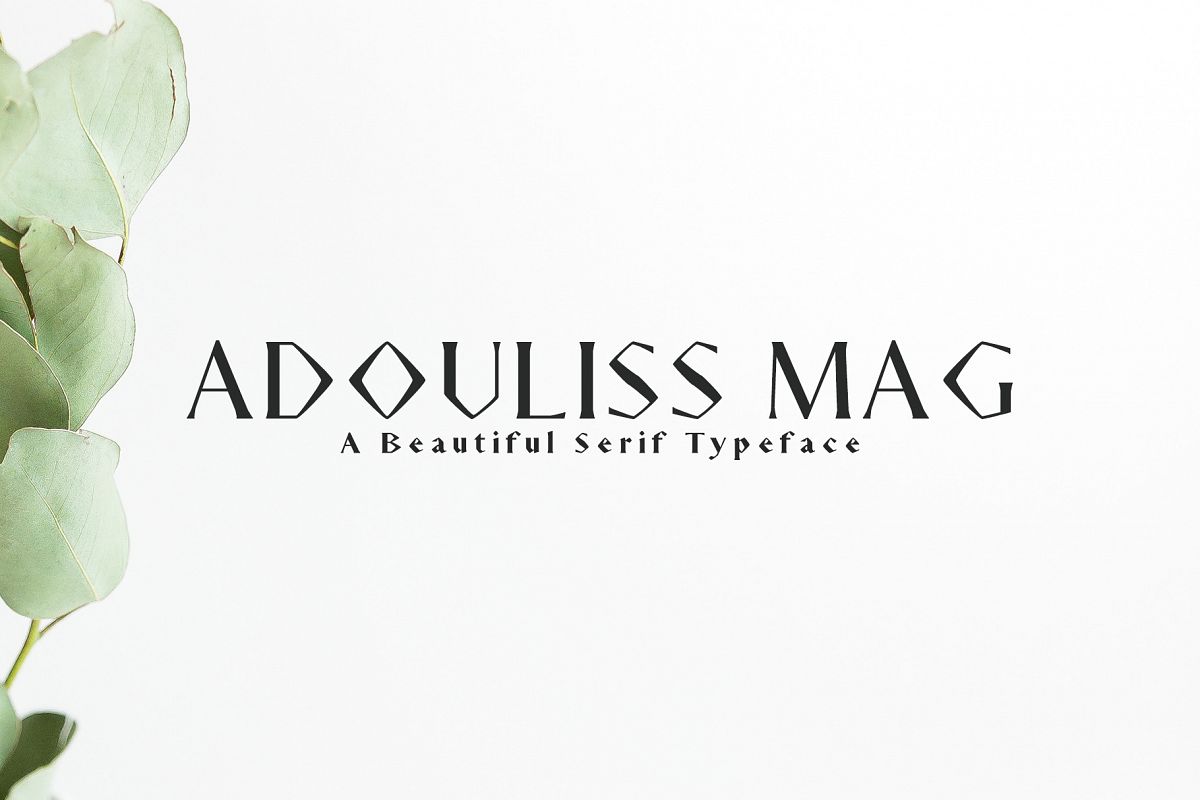
Adouliss Mag Serif Font Family
Adouliss Mag Serif Font Family is decorative and beautiful serif font family of 9 weights and it features unique and modern serif look and feel.Perfect for gorgeous logos & titles, layouts & content, or large & small scale, It looks gorgeous in all caps with a wide-set spacing if you want to try a classy look, or beautiful on its own in capital and lowercase letters for something completely timeless.
• Font Weight: Regular, Thin, Light, Bold, Black and Italics
• Extras: Uppercase Multilingual Letters, Lowercase Multilingual Letters, Numbers & Punctuation + Alternatives